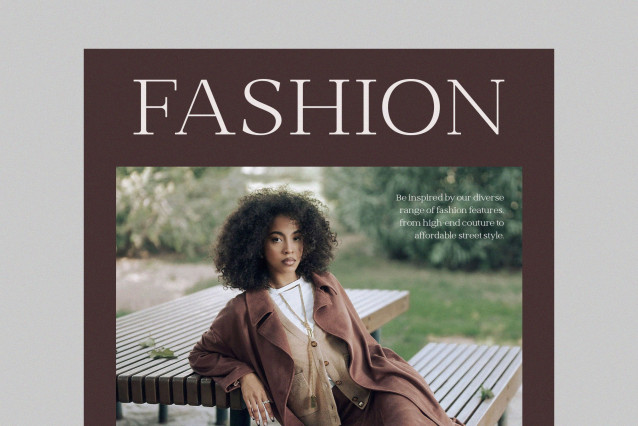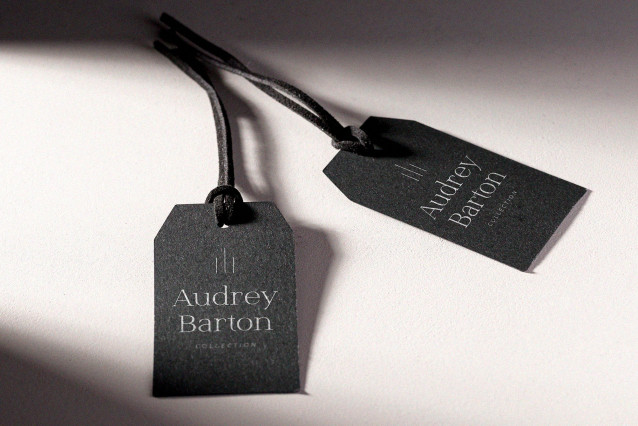
Shetilo Font
Shetilo Font is a modern and simple font, best used as a display for headings, logos, branding, magazines, product packaging and invitations.